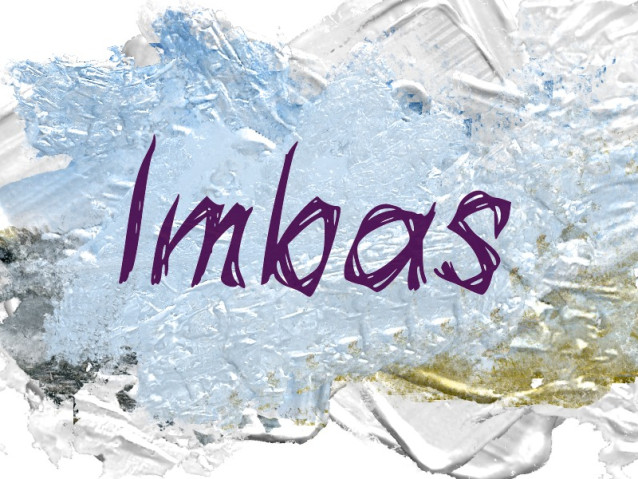
i Imbas Font
i Imbas Font is the ultimate horror-trash font inspired by the dark and death metal music genre. Whether you’re creating movie titles, designing posters, making album covers, or even adding quotes to your artwork, i Imbas is the font that will take your designs to the next level. With its unique style and eerie aesthetic, i Imbas is sure to grab attention and leave a lasting impression.